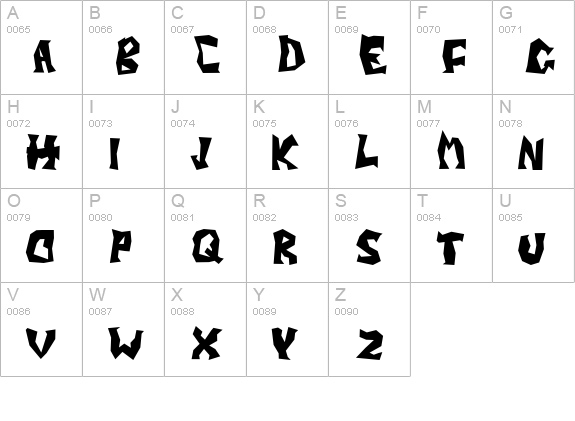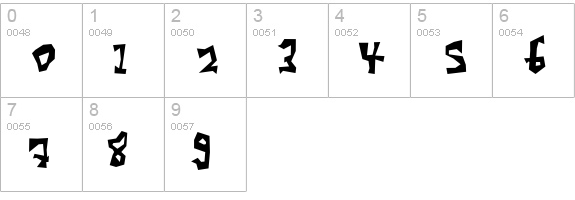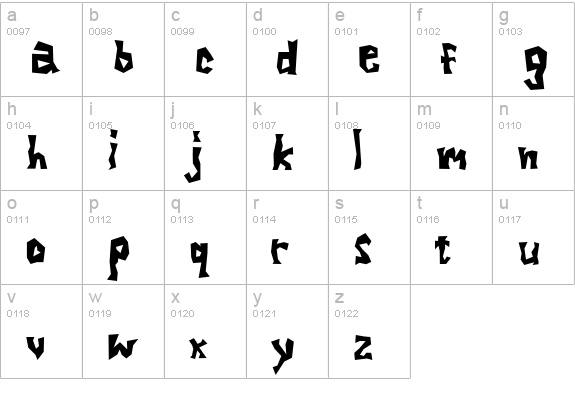
Goggle Font Details
Goggle font is a versatile and modern typeface that will elevate your design projects to the next level. With its sleek and stylish appearance, Goggle font is perfect for a wide range of applications, from branding to web design. The best part? It's completely free to download! You can easily access this fantastic font at FontsMarket.com, where you can unleash your creativity without any cost. Don't miss out on the opportunity to enhance your designs with the stunning Goggle font today!